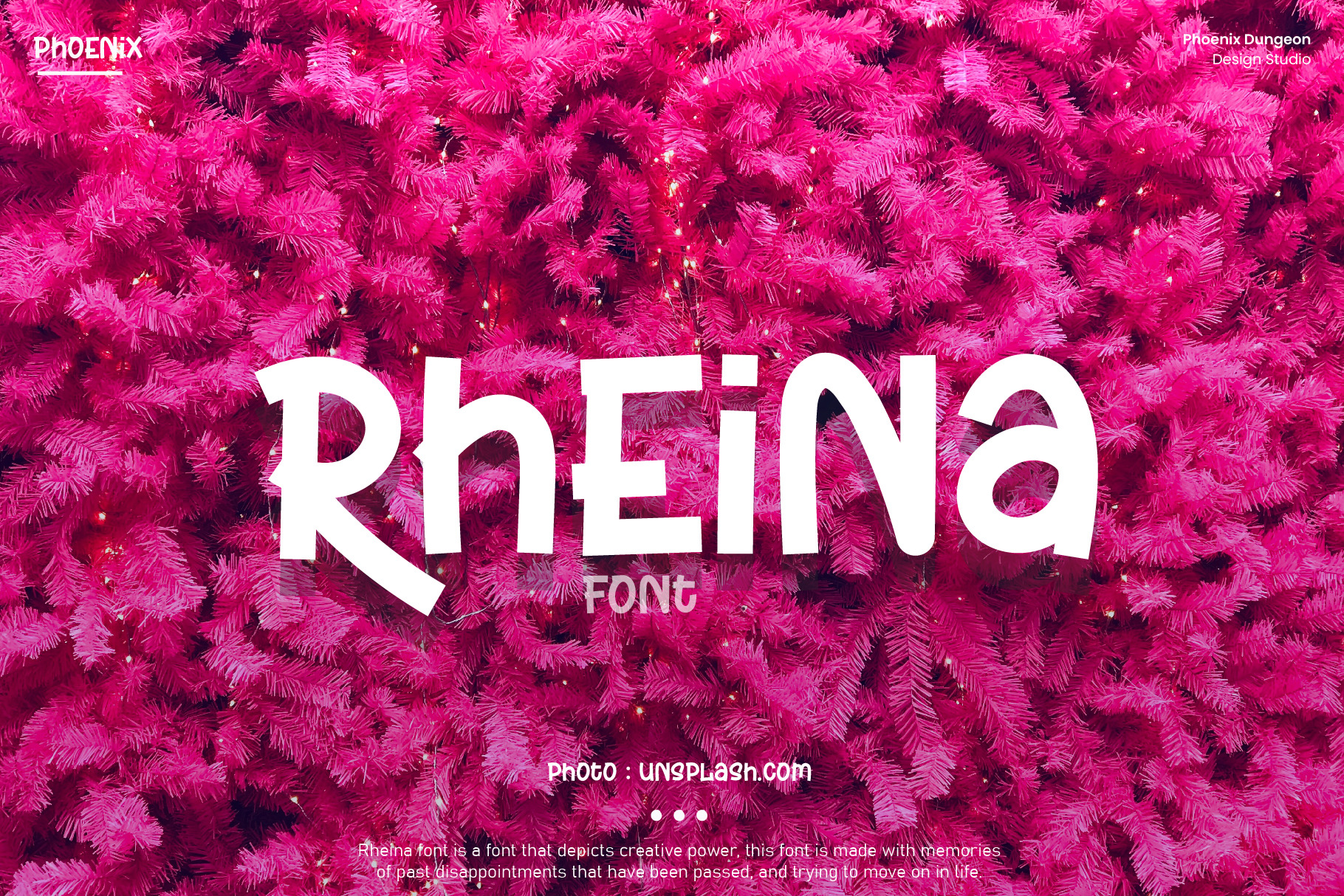
Rheina Font
Rheina font is a font that depicts creative power, this font is made with memories of past disappointments that have been passed, and trying to move on in life.